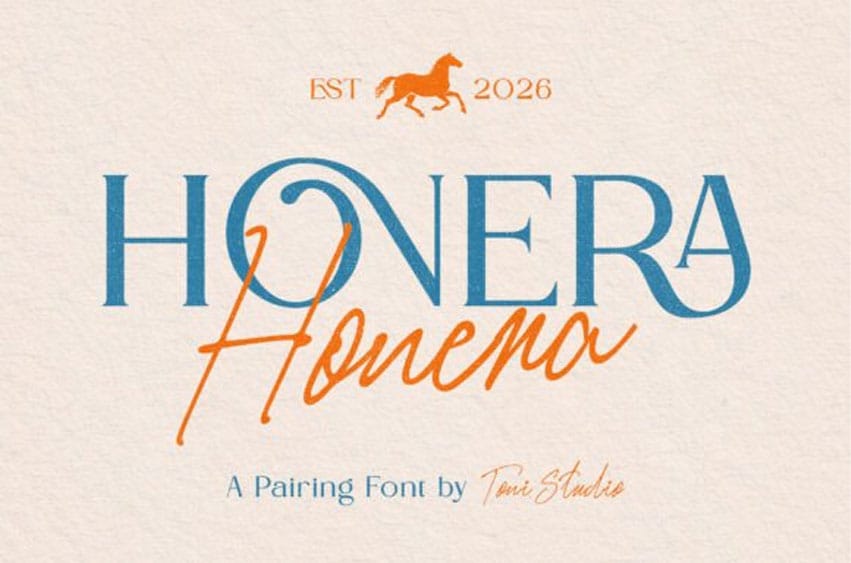
Honera Font Master the art of visual harmony with Honera, a versatile font duo that captures a “vintage-and-harmonious” soul. This collection features a sophisticated serif paired with a flowing script, characterized by rhythmic, interlocking swashes and a subtle ink-on-paper texture.
With its timeless structural balance and authentic artisan personality, Honera is the premier choice for independent ranch and equestrian branding, heritage-inspired product packaging, artisanal lifestyle logos, and high-impact “classic-meets-contemporary” social media headers.